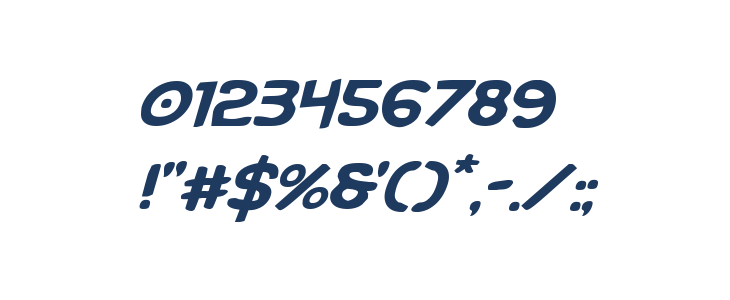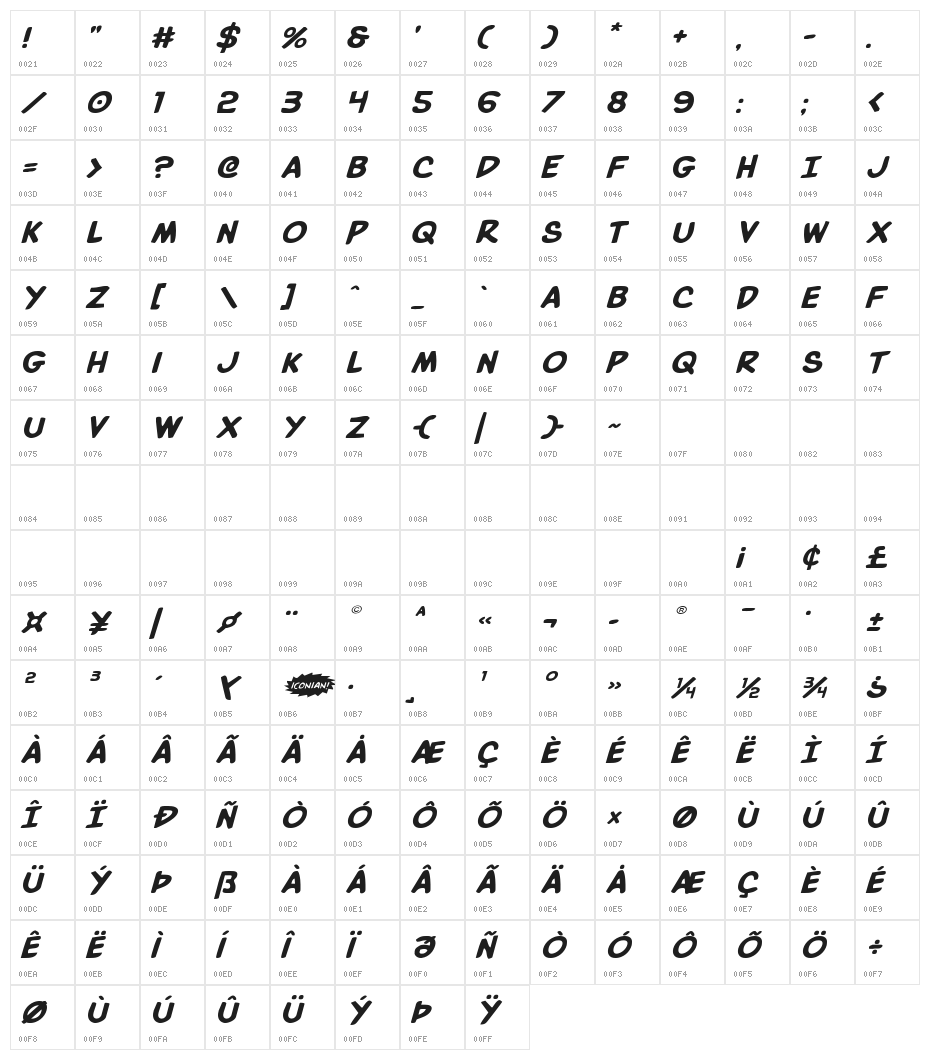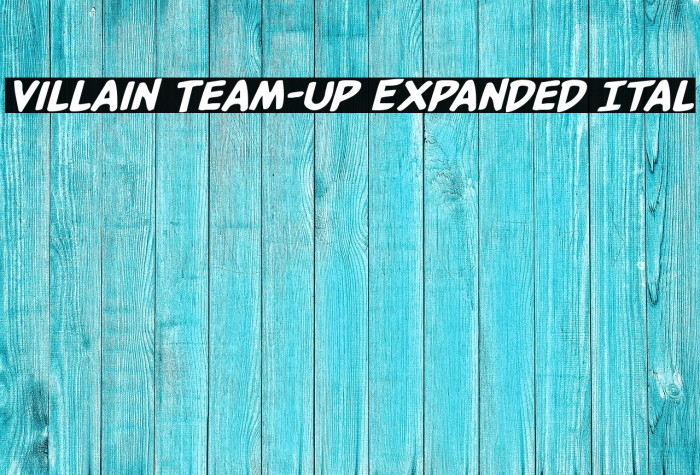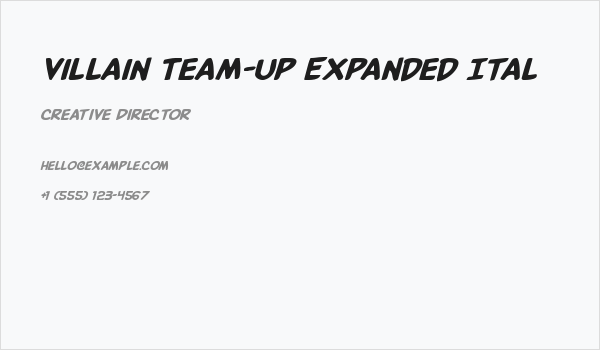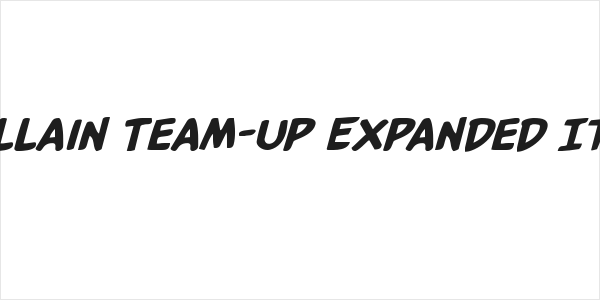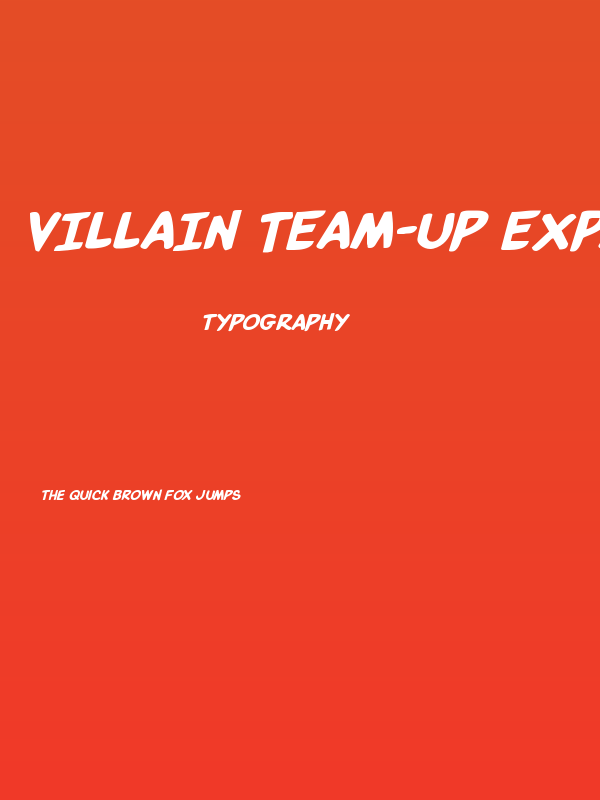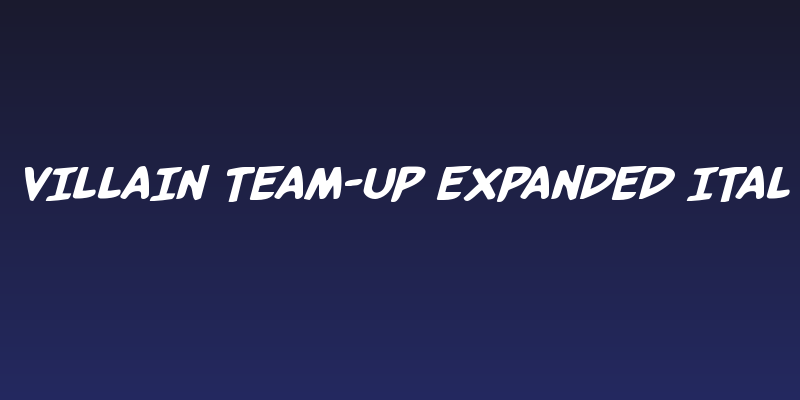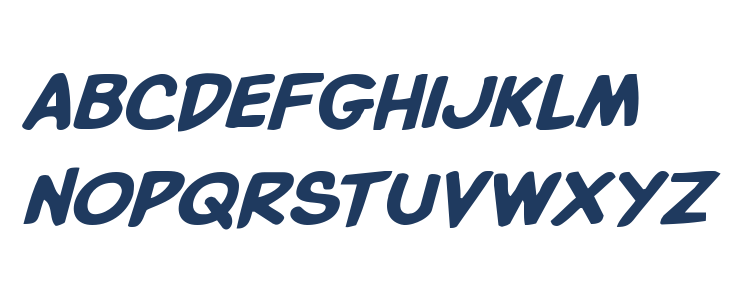
Villain Team-Up Expanded Ital Font
Villain Team-Up Expanded Ital Description
This font features a bold and dynamic style with an italic slant, giving it a sense of movement and energy. The characters are thick and rounded, with a playful yet assertive appearance. The expanded width of the letters adds to its boldness, making it stand out in any design. The font maintains a consistent stroke thickness throughout, providing a uniform look. It is well-suited for projects that require a strong visual impact, such as posters, headlines, and branding materials. The character spacing is normal, ensuring readability while maintaining its bold aesthetic.